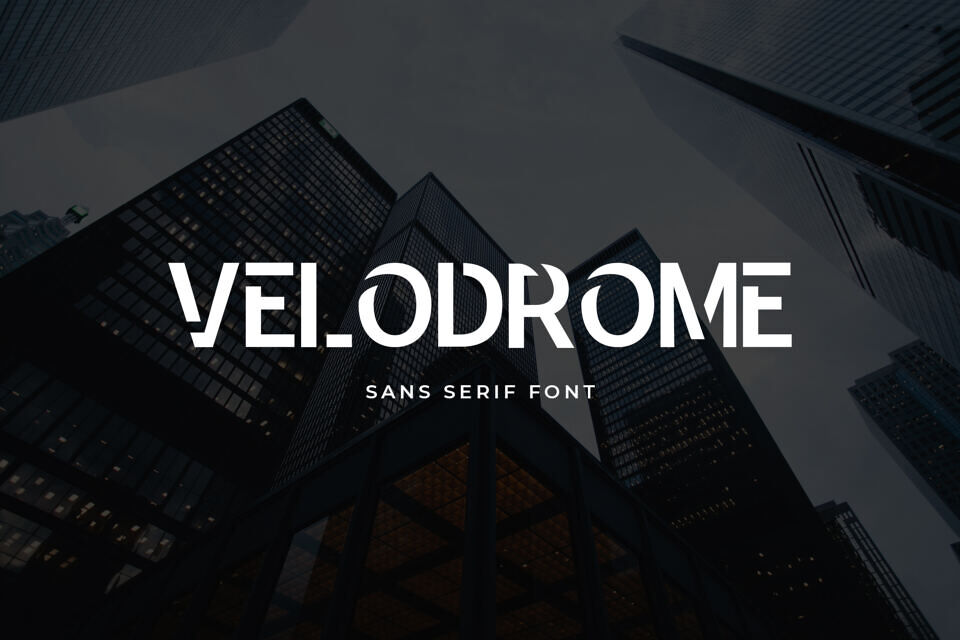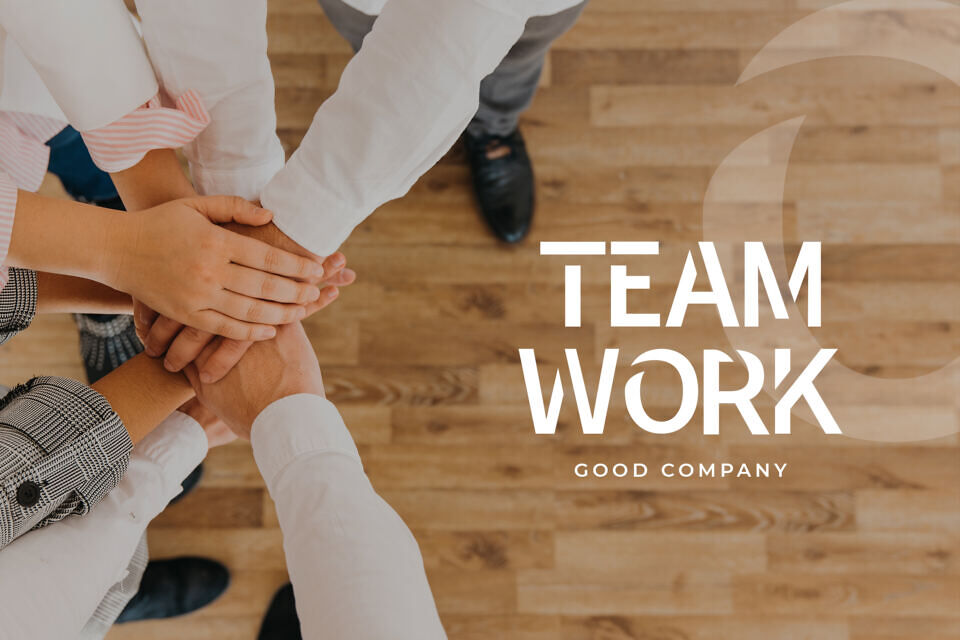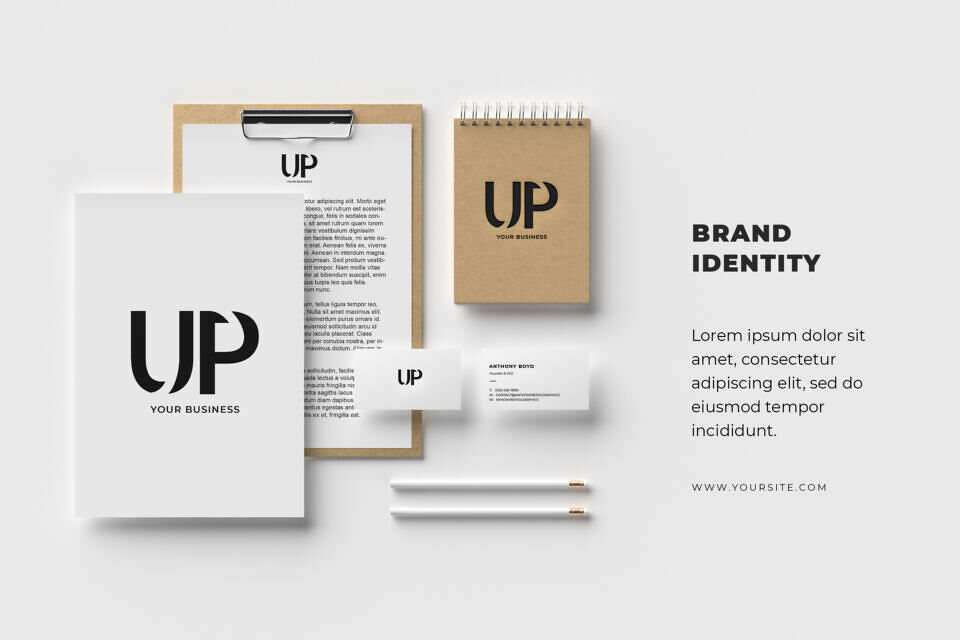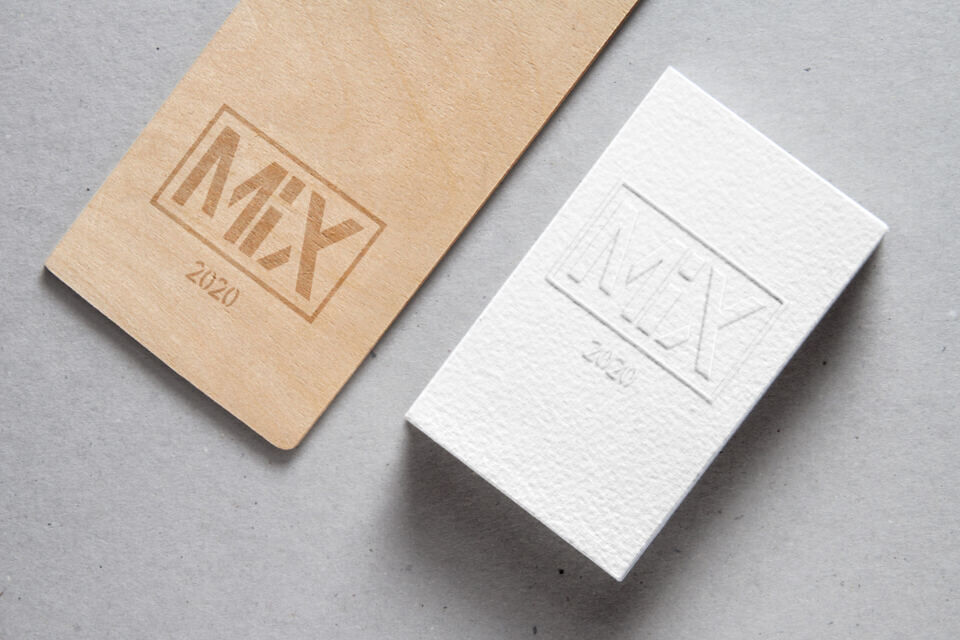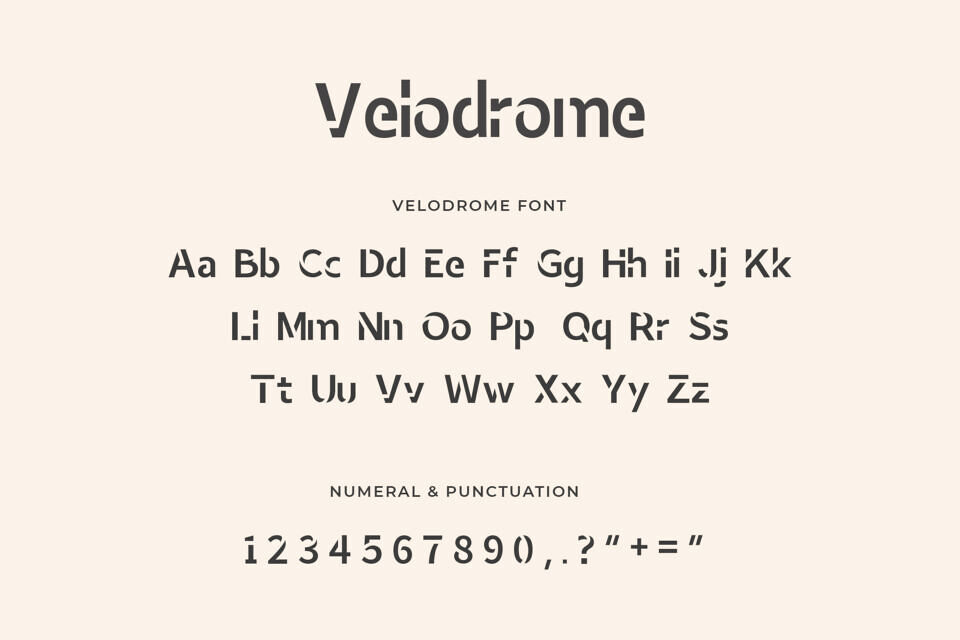
Velodrome Font
Velodrome is a modern and versatile sans serif display font. Use for awesome display, labeling, clothing, movie screen, poster, movie title, gigs, album covers, logos, and much more. It’s also could be good for both fun and semi-formal text.